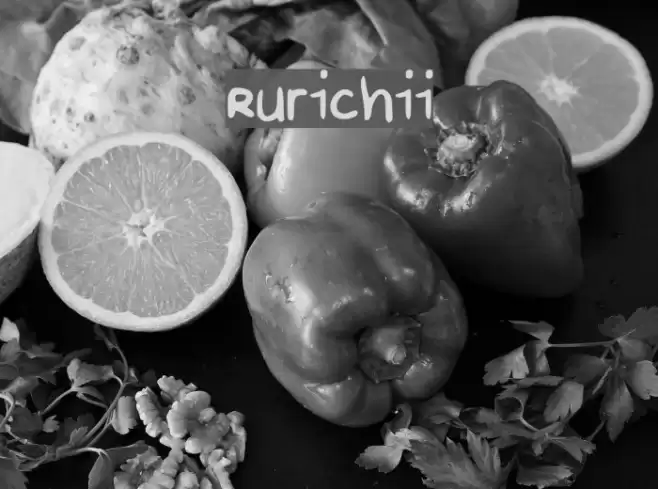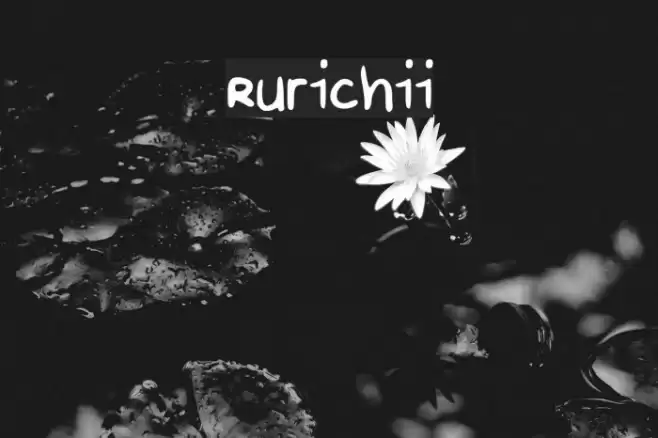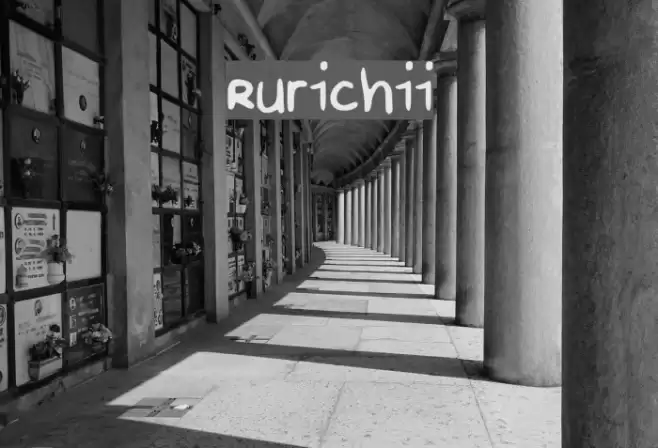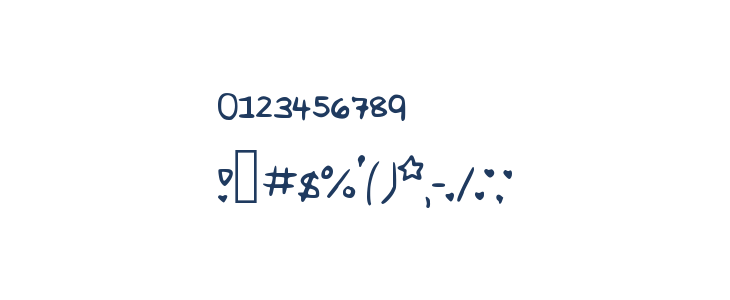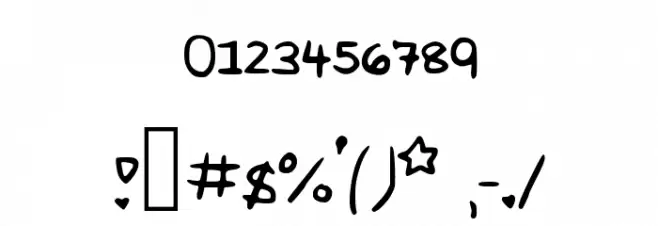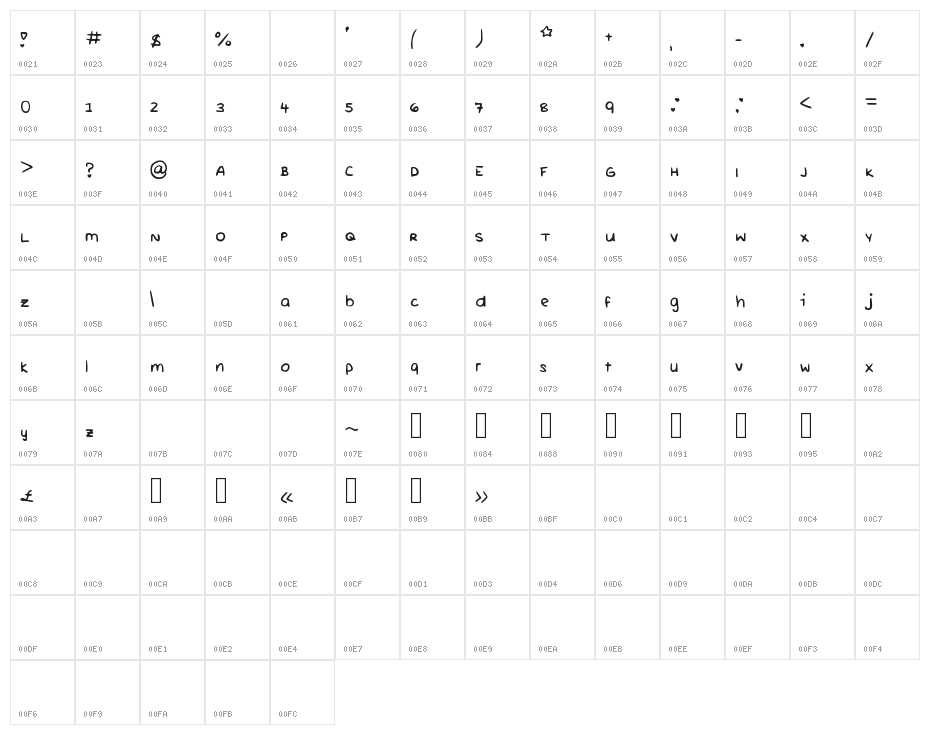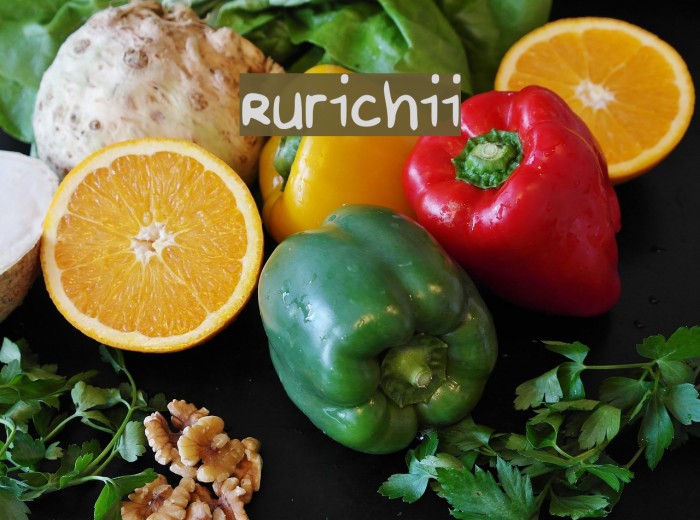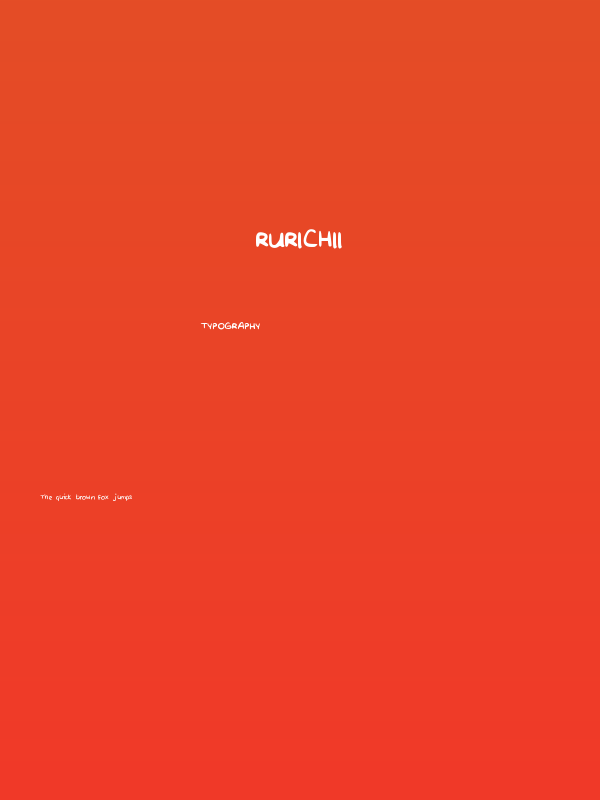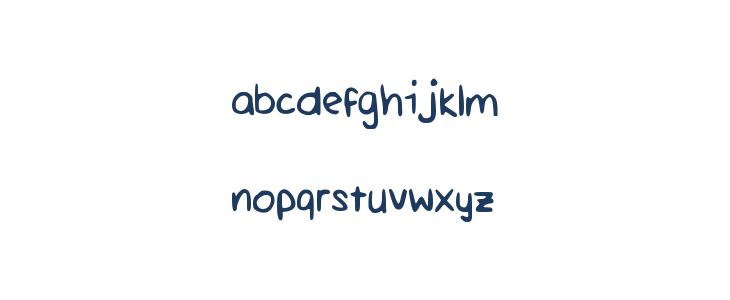
Rurichii Font
Rurichii Description
This playful and casual font features rounded, slightly irregular strokes that give it a handwritten appearance. The letters are bold and have a consistent thickness, contributing to a friendly and approachable style. The uppercase and lowercase letters maintain a uniform height, creating a cohesive look. Numbers and special characters are designed with the same playful touch, making them easily recognizable and visually appealing. The font's overall design is simple yet charming, perfect for projects that require a personal and informal touch.
A playful, handwritten-style font with rounded, consistent strokes from Handwritten fonts.
- Proposed Projects: Ideal for children's books, casual invitations, greeting cards, and playful branding.
- Overall Style: Casual
- Use Case: Headlines, Logos, Informal text